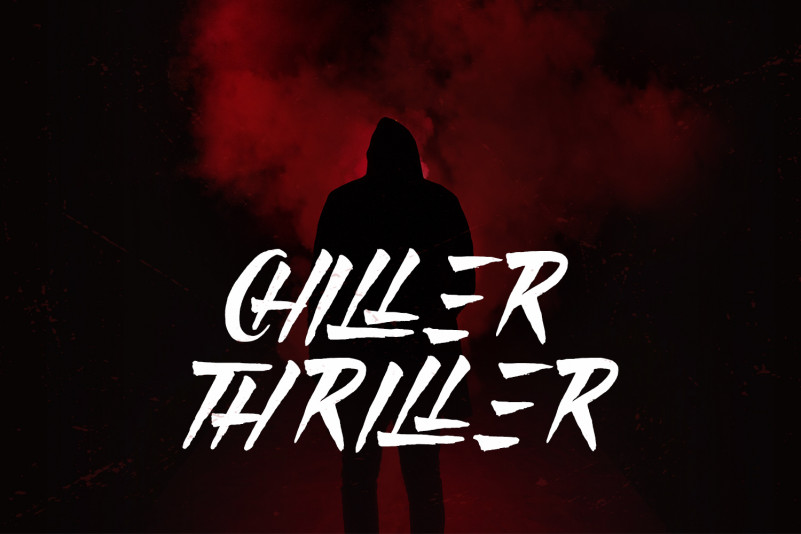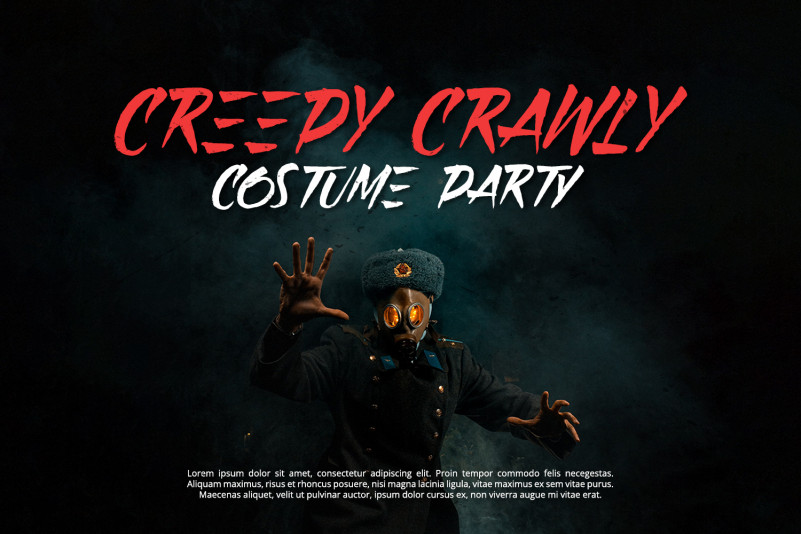
Jurik Brush Font
Jurik is a cool brushed display font. No matter the topic, this font will be an incredibly asset to your fonts’ library, as it has the potential to elevate any creation.